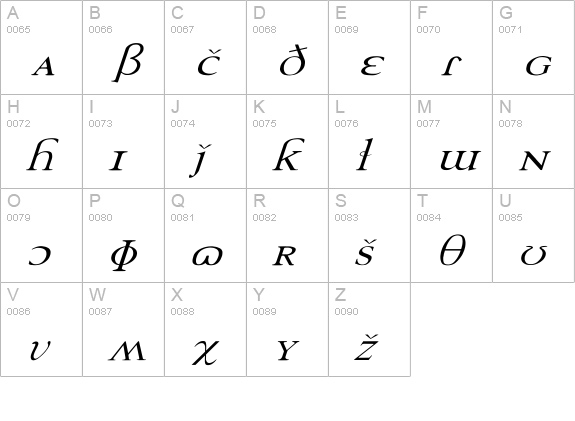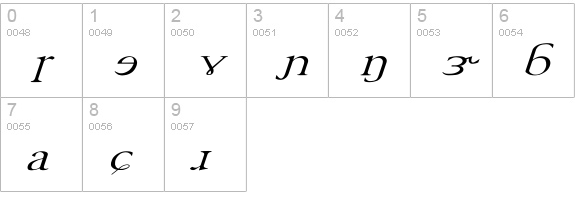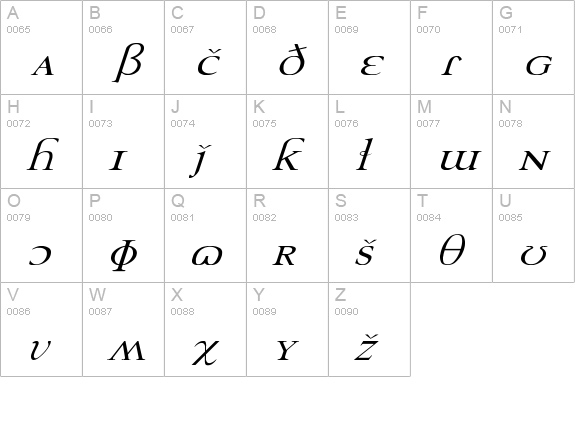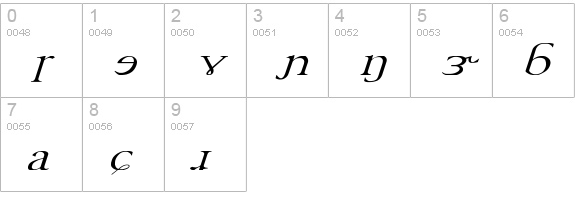
TechPhonetic Wd Italic Font Details
TechPhonetic Wd Italic is a distinctive, italic variant in the TechPhonetic typeface family \xE2\x80\x94 well suited to design and typography projects.
TechPhonetic Wd Italic font is a sleek and modern typeface that is perfect for adding a touch of sophistication to any design project. With its clean lines and stylish curves, this font brings a contemporary feel to your work. This font is not only visually appealing, but it also offers great versatility. Whether you need a font for a website, a logo, or a poster, TechPhonetic Wd Italic will deliver the desired impact. It is designed to catch the eye and make a statement, making it ideal for any creative project. One of the best things about TechPhonetic Wd Italic font is that it is freely available to download at FontsMarket.com. This means that you can use this font without any restrictions or limitations. Whether you are a professional designer or a hobbyist, this font is accessible to everyone. The free availability of TechPhonetic Wd Italic font makes it an excellent choice for budget-conscious designers. You no longer have to compromise on quality or pay hefty fees for a high-quality font. With TechPhonetic Wd Italic font, you can create stunning designs without breaking the bank. In addition to being free, TechPhonetic Wd Italic font is also incredibly easy to use. It is compatible with various design software, including Adobe Photoshop, Illustrator, and InDesign. This means that you can seamlessly integrate this font into your existing workflow, saving you time and effort. Overall, TechPhonetic Wd Italic font is a must-have for any designer looking to add a touch of elegance and modernity to their work. Its sleek design, versatility, and free availability make it a valuable asset for any creative project. Download TechPhonetic Wd Italic font today at FontsMarket.com and elevate your designs to the next level.